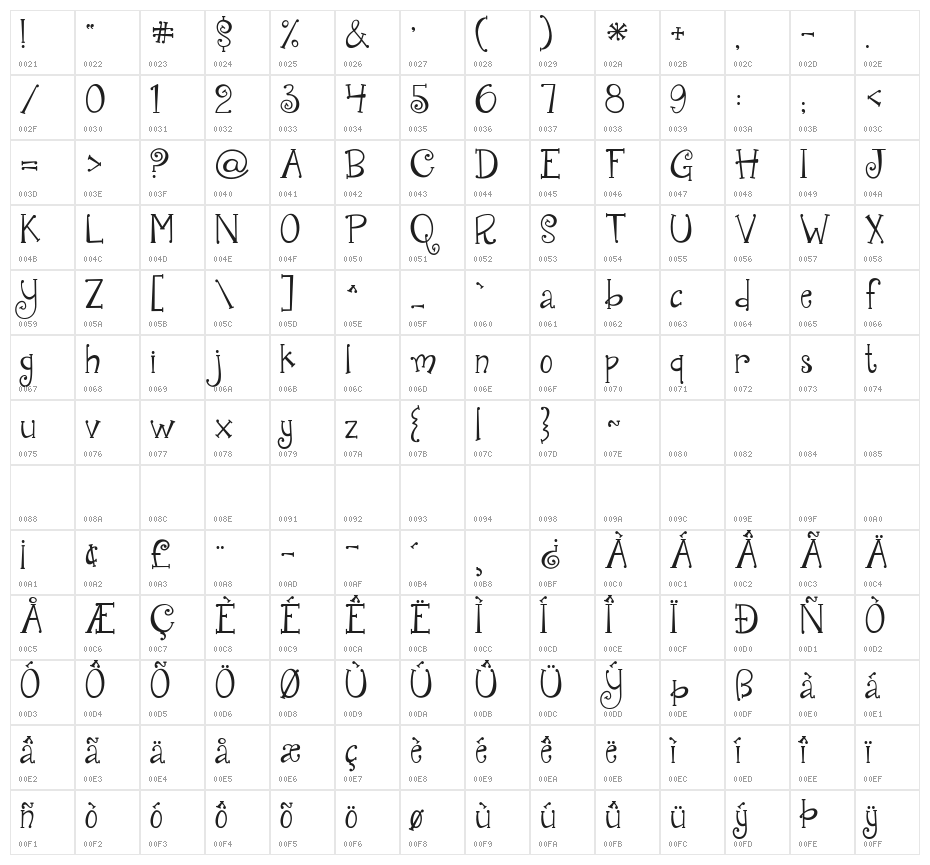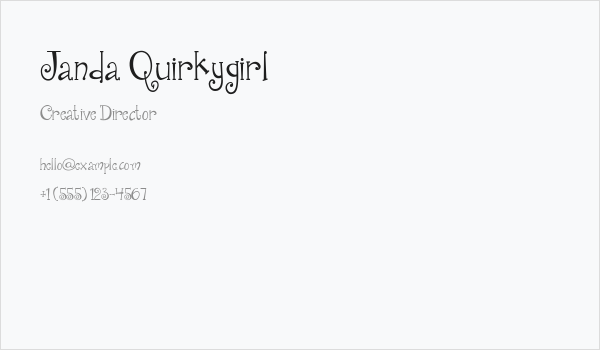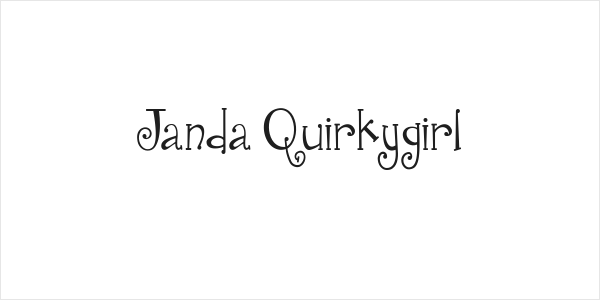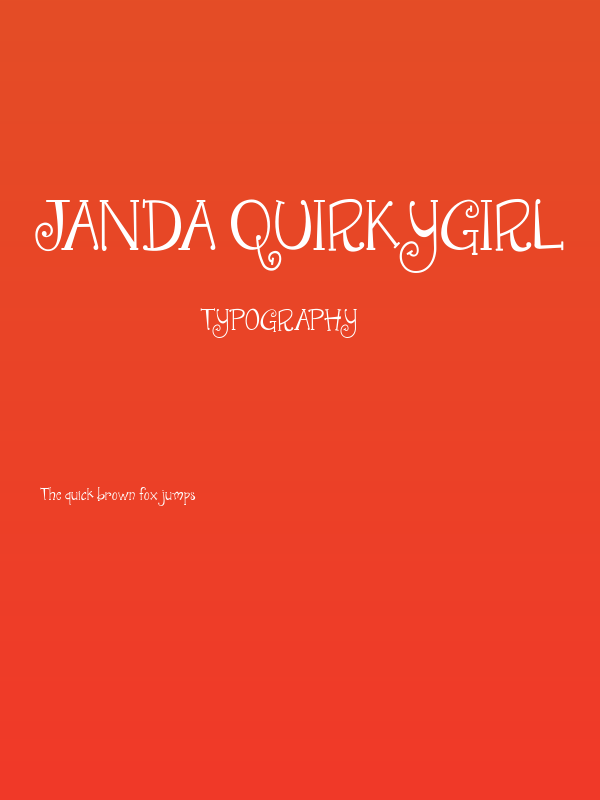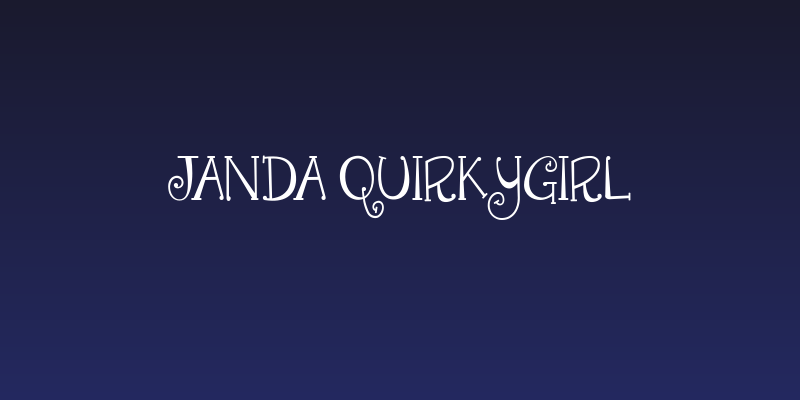
Janda Quirkygirl Font
This font exudes a playful and whimsical charm, characterized by its quirky and irregular letterforms. Each character has a unique flair, with some letters featuring unexpected curls and swirls that add a sense of fun and creativity. The uppercase letters are bold and slightly elongated, while the lowercase letters maintain a consistent yet lively appearance. Numbers and special characters follow the same playful theme, making them stand out with their distinctive style. The overall design is both eye-catching and approachable, perfect for projects that require a touch of personality and flair.
Overall StyleWhimsical
Use CaseHeadlines, Logos, Creative projects
Proposed ProjectsIdeal for children's books, playful branding, greeting cards, and creative posters.